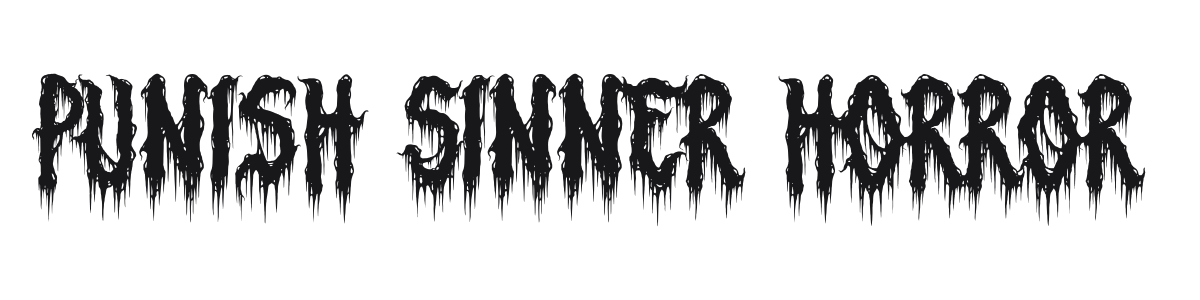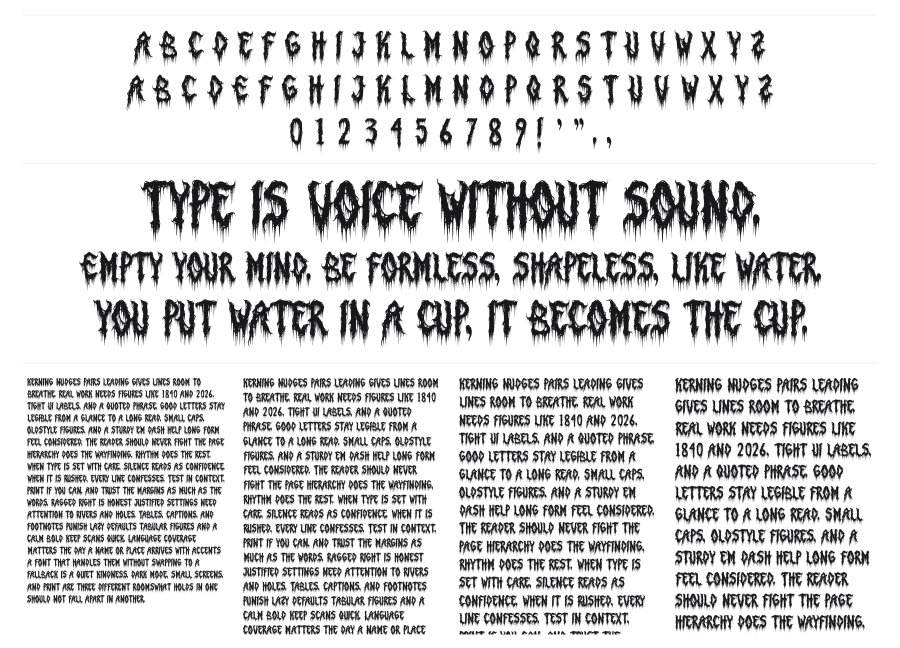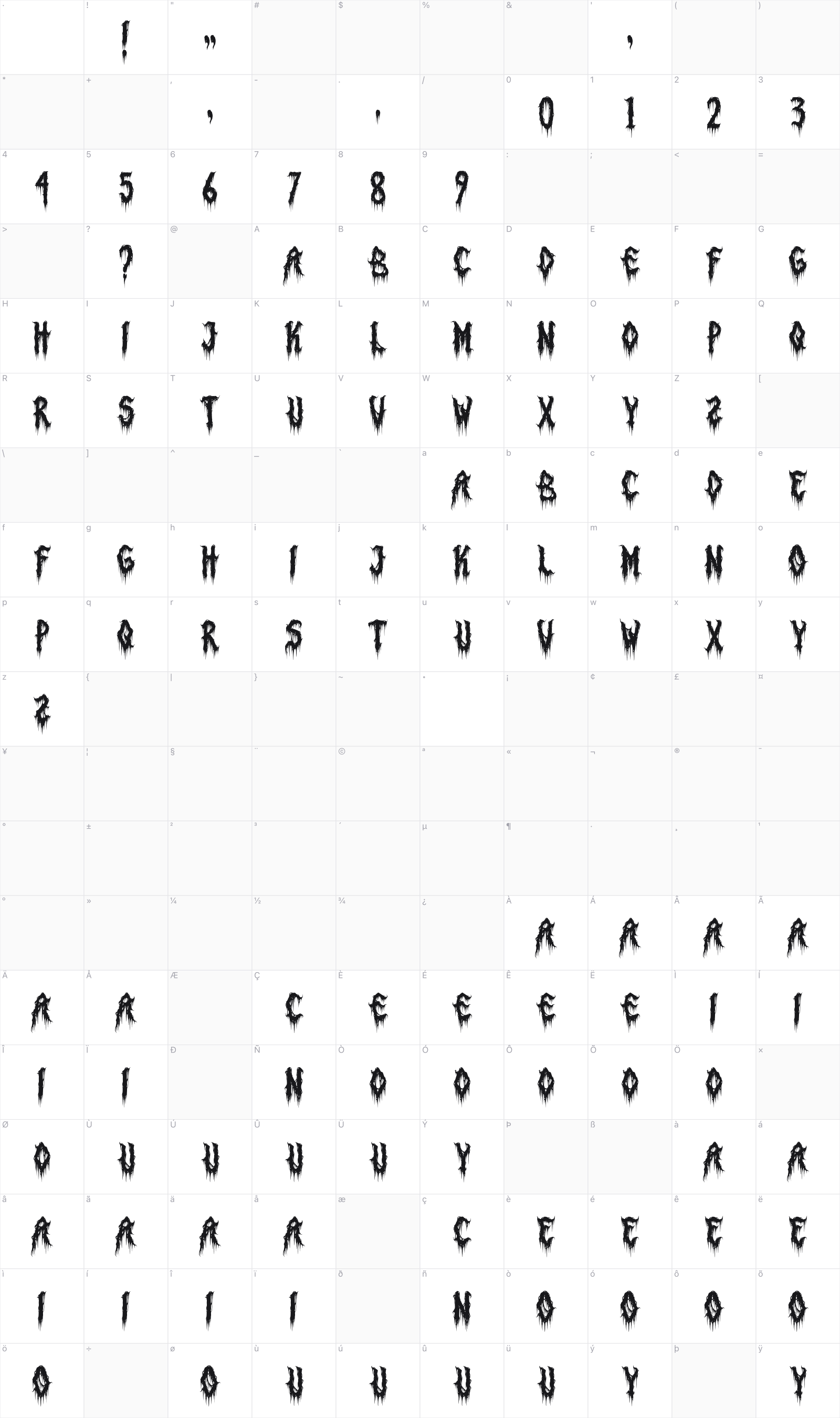
Punish Sinner Horror
Punish Sinner Horror is a heavy display font soaked in black metal and horror aesthetics, with characters that drip and splatter as if painted in ink or something darker. The blackletter-influenced structure is buried under layers of distress, making each character feel hand-rendered and unstable. It belongs on band logos, horror posters, and anything that needs to feel genuinely threatening.